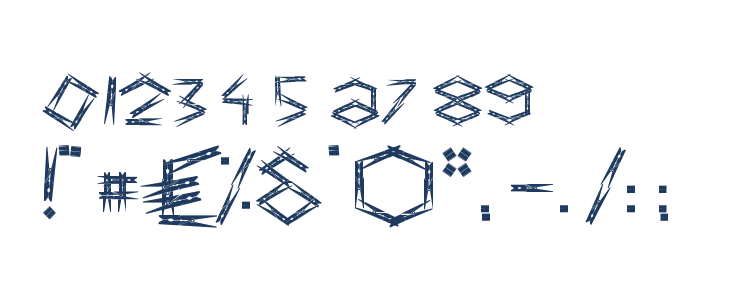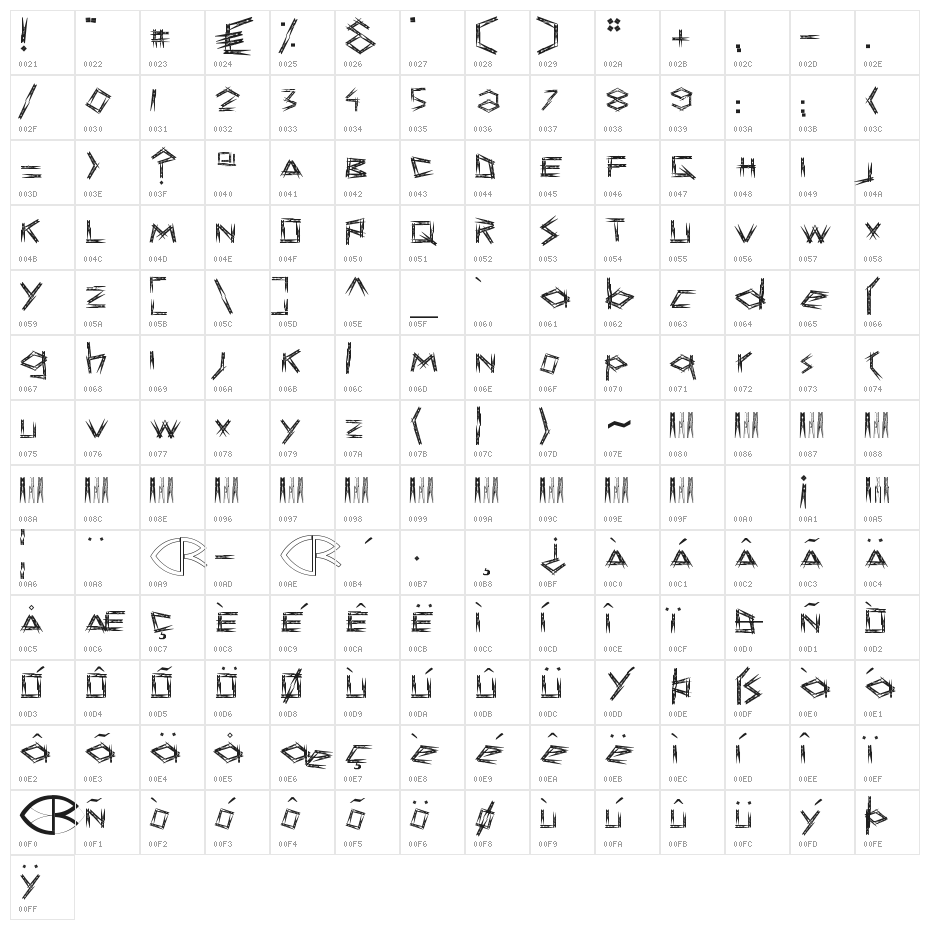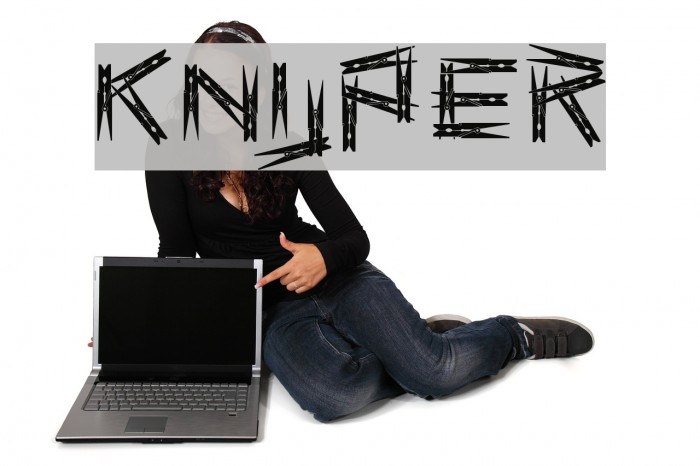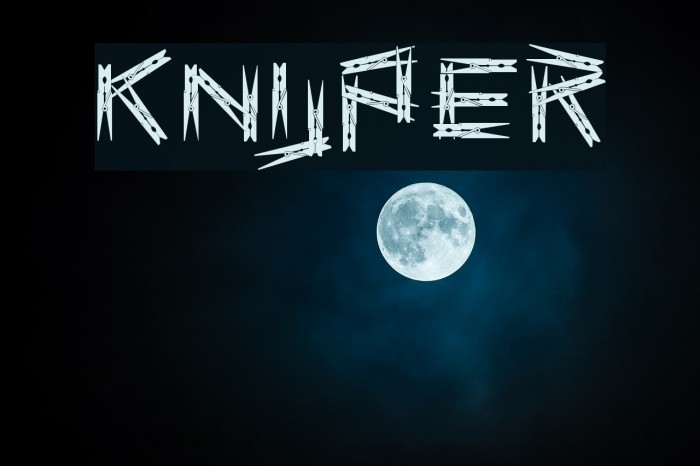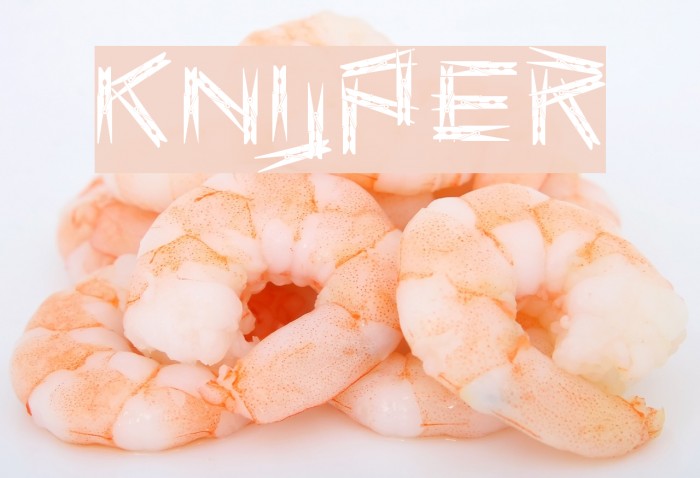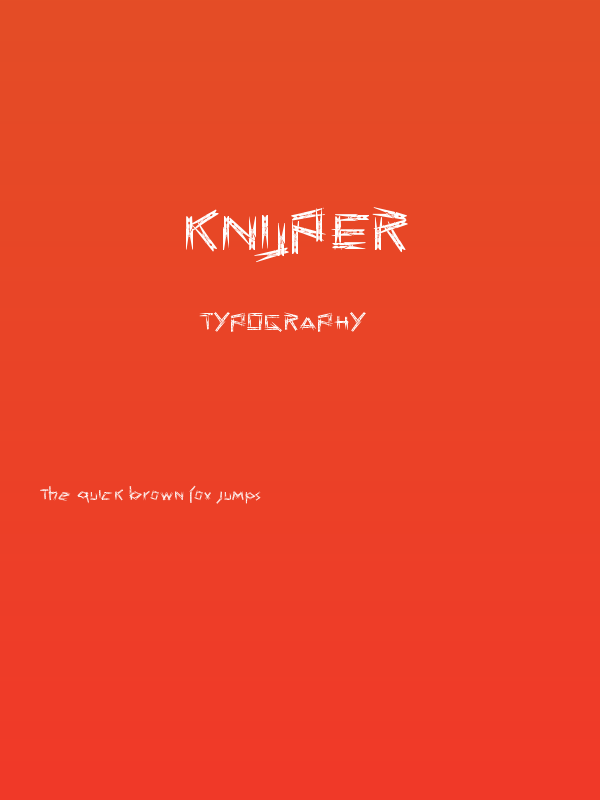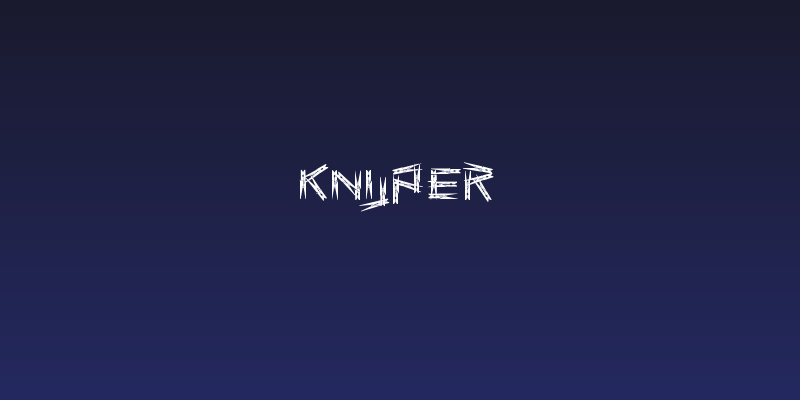
KNIJPER Font
KNIJPER Description
This font features a highly decorative and edgy style, characterized by its jagged, angular lines that give it a chaotic and energetic appearance. The letters are constructed with overlapping strokes, creating a sense of movement and intensity. Each character is unique, with varying line thicknesses and sharp angles, contributing to a dynamic and rebellious aesthetic. The font is reminiscent of graffiti or punk rock art, making it stand out with its bold and unconventional design.
| Overall Style | Modern, Punk |
| Use Case | Logos, Posters, Album covers |
| Proposed Projects | Ideal for music album covers, edgy posters, streetwear branding, or any project seeking a bold, rebellious look. |